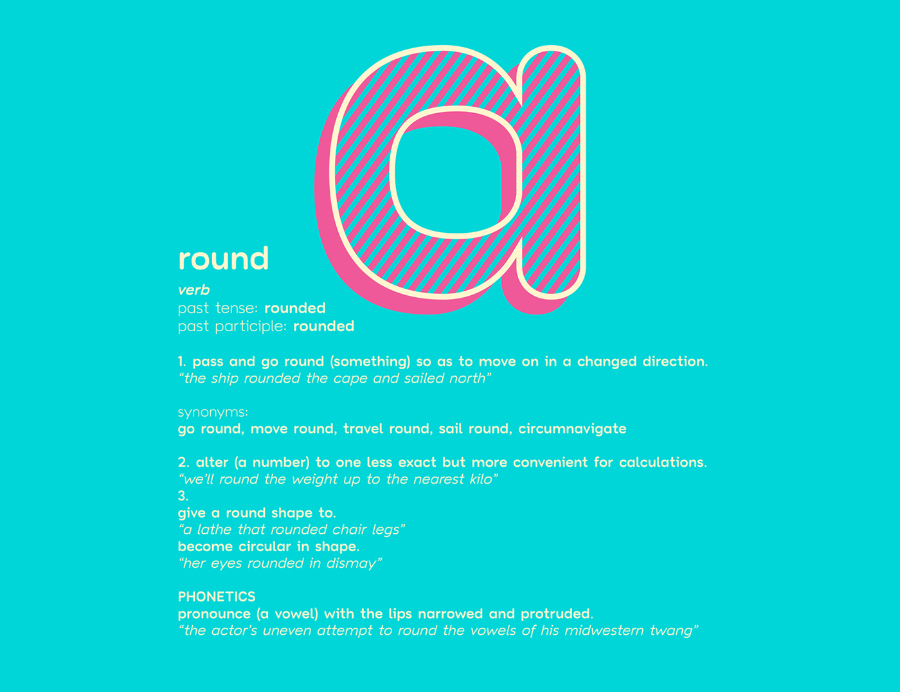
Toriga Font Family
Continue I want to introduce to you a fun font, is a font family with beautiful font, is a variant known as Touriga Nacional. That is Toriga Font Family! Toriga designed by JAM Type Design. This fun typeface boasts the features of a well-balanced, versatile, modern sans which is highly legible as a text font and with a clean, elegant look as a display font at larger sizes. The rounded terminals give it a friendly, approachable look. Comprising 6 weights with equivalent italics, this font family is perfect for your more playful designs. It was created to be enjoyed, so enjoy creating with it!